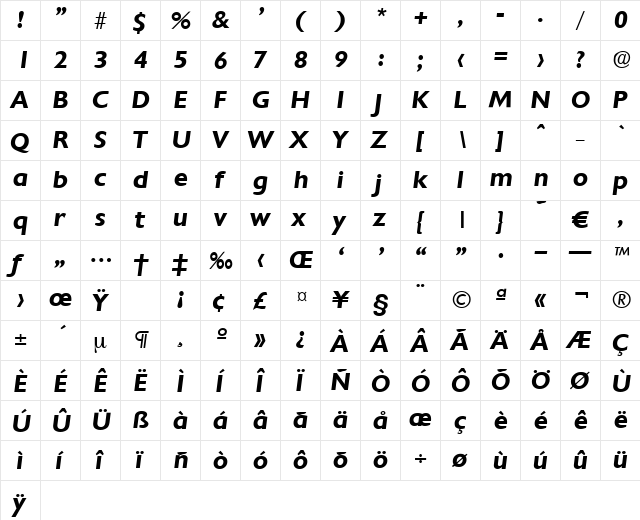
Chantilly-DemiBoldIta Regular
Design Context for Chantilly-DemiBoldIta Typeface
Chantilly-DemiBoldIta is a composed and adaptable typeface that performs quietly and consistently across a wide range of design contexts. The heavy weight commands attention and anchors typographic hierarchies.